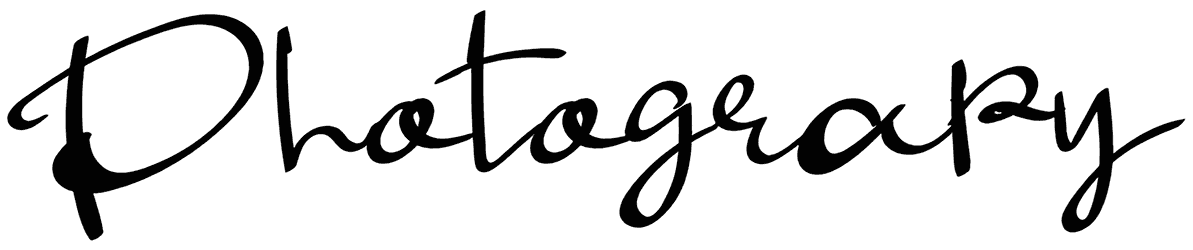
Photograpy Font
Photograpy is a messy handwritten font with irregular strikes. It will add a casual and natural touch to your work. Unfortunately, this font is unreadable, but it comes with a complete set of characters instead. It can be used for watermarks, flyers, fun party invitations, advertising purposes, and other projects that want an organic human script look.